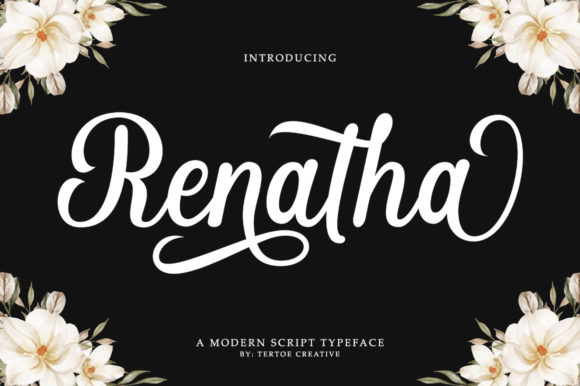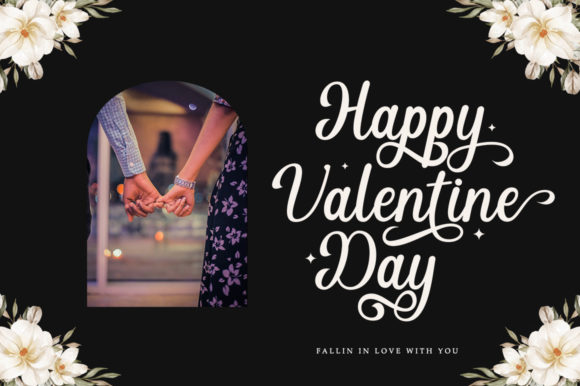
About Renatha Font
Renatha is an exquisite script font that captures attention with its elegant and delicate design. Its flowing lines and intricate details make it a fantastic choice for adding a touch of sophistication and refinement to various design projects. Whether you’re working on invitations, branding materials, social media graphics, or any other creative endeavor, Renatha’s versatility shines through.
What sets Renatha apart is its ability to function as a stylish text overlay that effortlessly blends with background images or other design elements. Its timeless aesthetic adds a sense of grace and charm, creating a harmonious balance between text and visuals. This makes Renatha not only visually appealing but also highly practical for a range of applications.
One of the standout features of Renatha is its PUA encoding, which provides you with convenient access to an array of glyphs and swashes. This means you can easily experiment with various letterforms and decorative elements, giving you the freedom to customize and tailor your text to your specific design vision.
Renatha’s delicate curves and sophisticated style lend an air of elegance to any project, making it ideal for formal events, luxury brands, and anything that requires a touch of upscale aesthetics. Its ability to evoke emotions and create a lasting impact on the audience makes it a valuable asset in your font library.
Whether you’re aiming for a timeless look or a modern twist, Renatha’s versatility ensures it can adapt to your creative needs. With its graceful script and attention to detail, Renatha is more than just a font – it’s a tool that allows you to transform your ideas into visually captivating masterpieces.